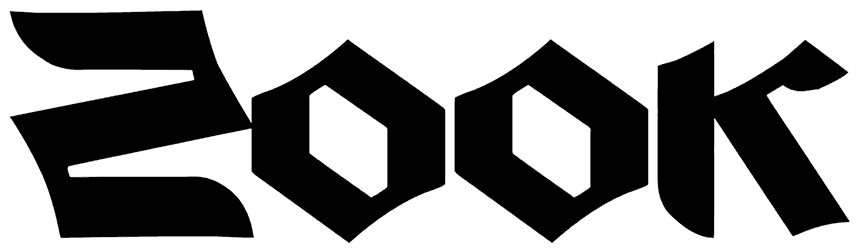
Zook Font
Designed byThe Flying Banana
All angular letterforms of this geometric font wrap smartly in a bold, heavy texture that can drive your traffic amazingly. In the company of a futuristic vibe, this stone font makes every effort to bring variety and dynamism to your illustrations despite lacking lowercase letters. Zook will run smoothly in inventing headers, industrial ads, scientific magazines, automotive, and others with its assertive triangular image.